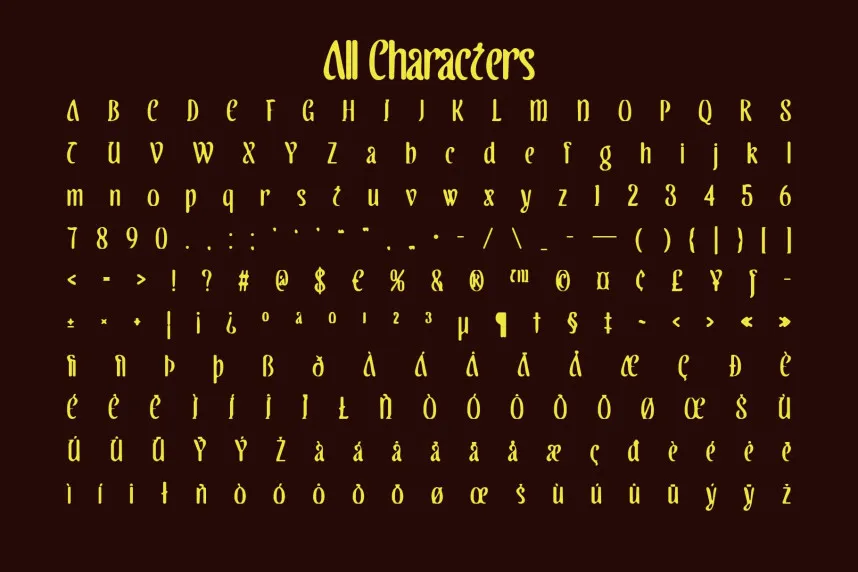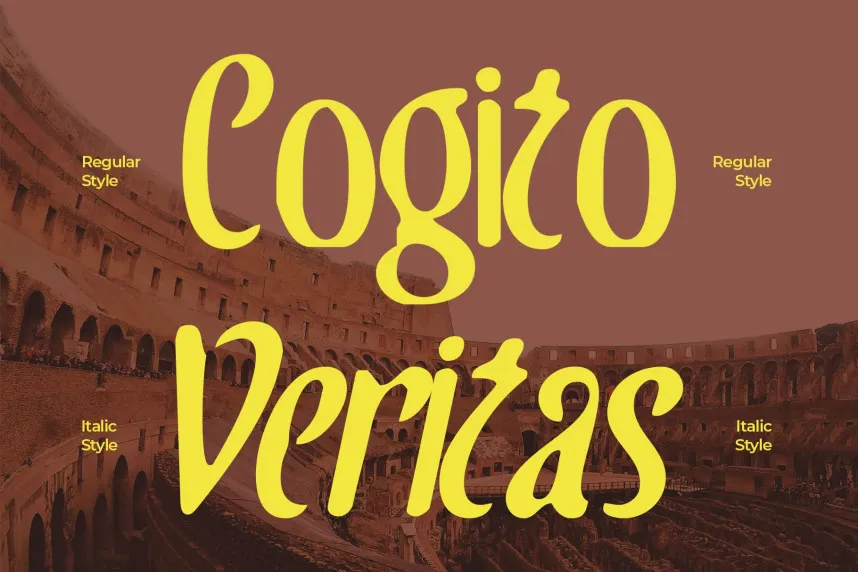
Athens Drawn Font is a stylish and artistic typeface that carries a hand-drawn look. It has a creative and natural flow that makes text feel warm and personal.
The font is designed to look like it was drawn by hand, giving it a unique charm that feels both casual and modern.
One of the most attractive things about Athens Drawn Font is its versatility. It can be used in a wide range of projects such as logos, invitations, posters, product packaging, and social media graphics.
The font gives off a friendly and approachable vibe. It is especially useful for projects that need a human touch, where you want your message to feel personal and inviting rather than too formal or mechanical.
Athens Drawn Font Family
It also balances style with readability. Even though it has a decorative and artistic design, the letters remain clear and easy to read. This makes it practical for both short titles and longer text in creative layouts.
Another strength of this font is its uniqueness. Each letter has slight variations and curves that give it a natural hand-drawn feel. This makes designs look authentic and original, which is perfect for anyone who wants their project to stand out.